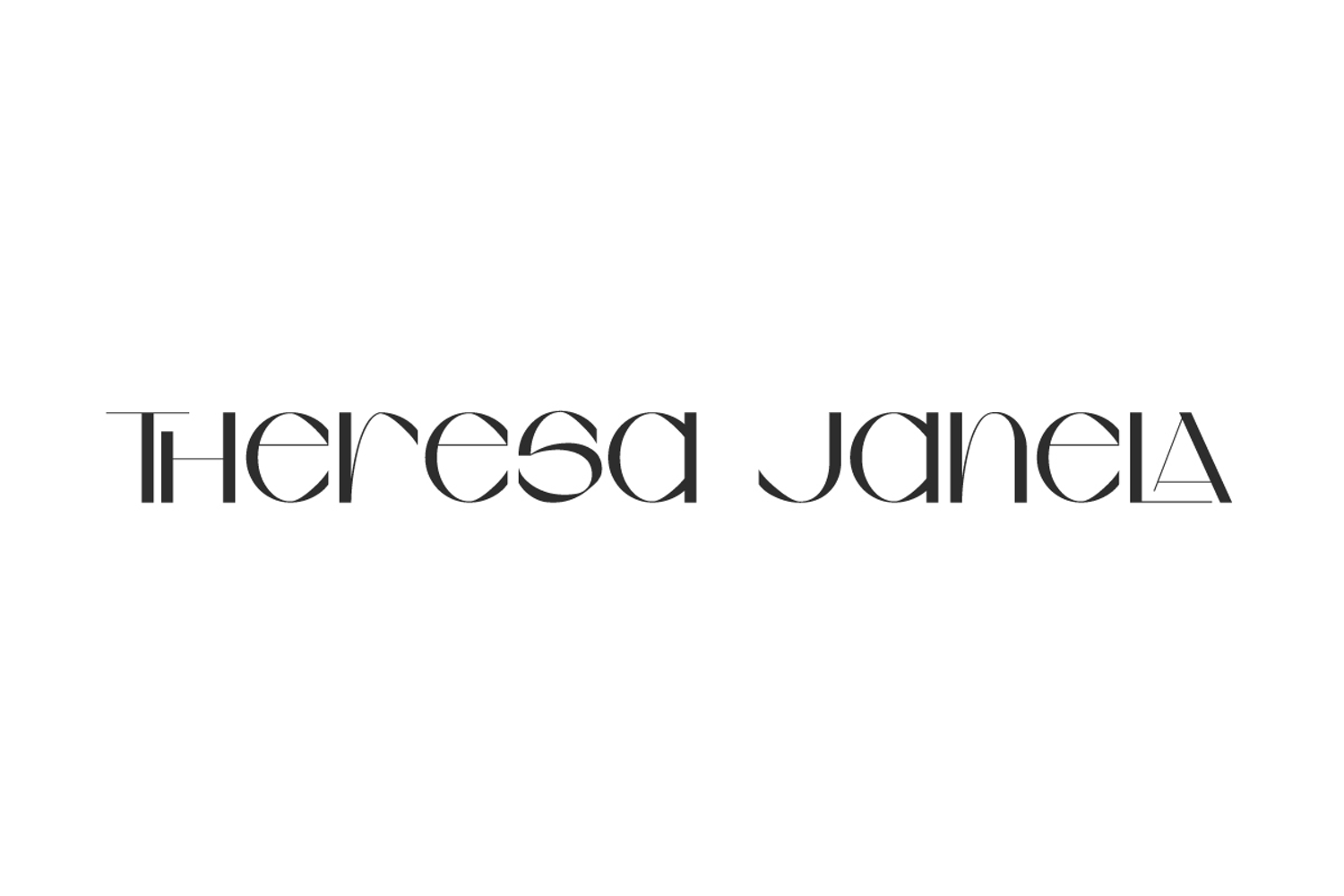
Theresa Janela
Theresa Janela Font is a sophisticated sans serif display font that will appeal to anyone who needs a typeface with a touch of creativity that feels contemporary and stylish. It can be used for blogs, brochure, card design, embossed design, flyer, headers, invitation, label, logos, magazine cover, mockup, poster, product packaging, sticker, template, title, watermark, and more.
Theresa Janela Font includes full set of Uppercase and Lowercase Basic Characters, Numbers, Punctuation, Symbols and Ligature. It has a slightly odd shape with beautiful details, from curves to unique fine lines. Creatively designed to inspire and enhance your design. It can be used for beautician, bridal boutique, cosmetic, florist, furniture, home furniture, graphic design, interior design, spa salon, wedding, and more.